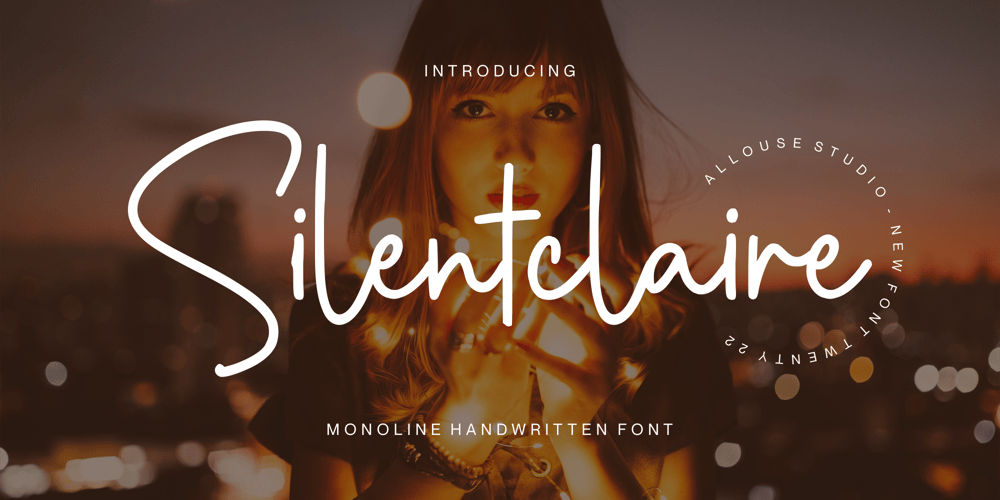
Silentclaire
Silentclaire font
Silentclaire Font Family was designed by Fachrizal Yusuf and published by Allouse Studio. Silentclaire contains 1 styles and family package options. Proudly Presenting, Silentclaire A Monoline Handwritten FontSilentclaire is perfect for product packaging, branding project, megazine, social media, wedding, or just used to express words above the background.Silentclaire also multilingual support.Enjoy the font, feel free to comment or feedback, send me PM or email.